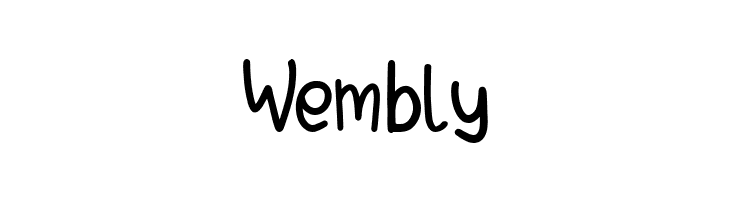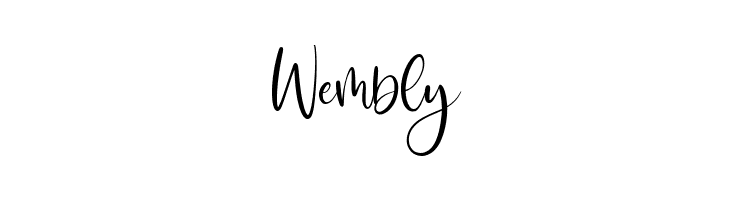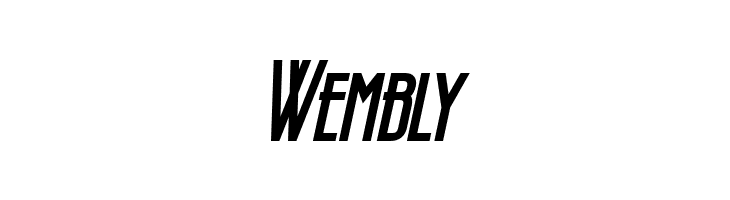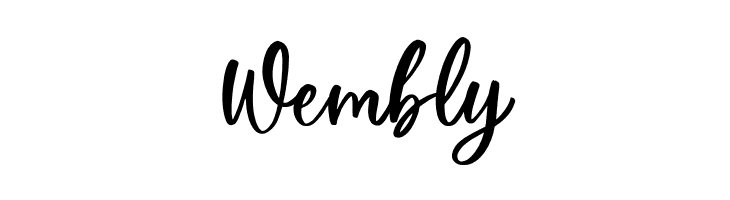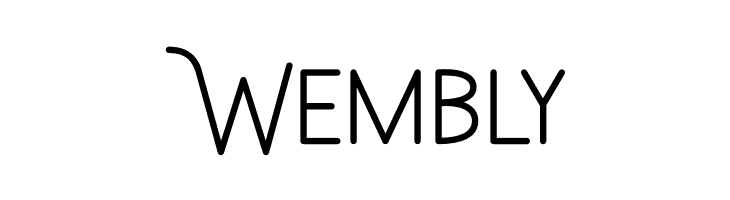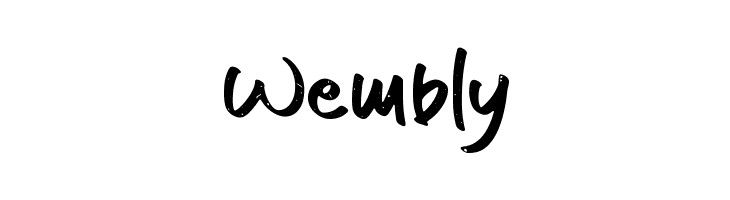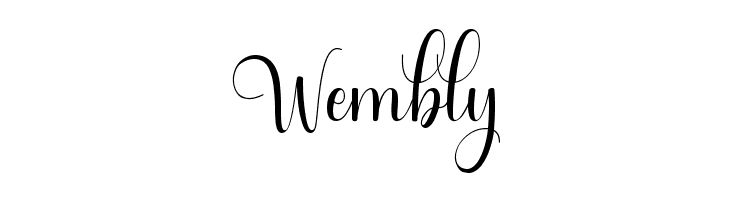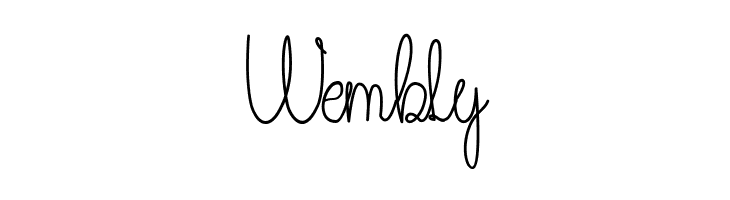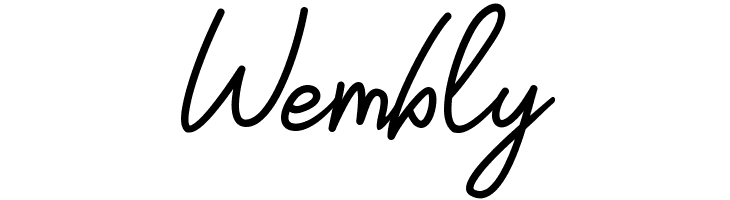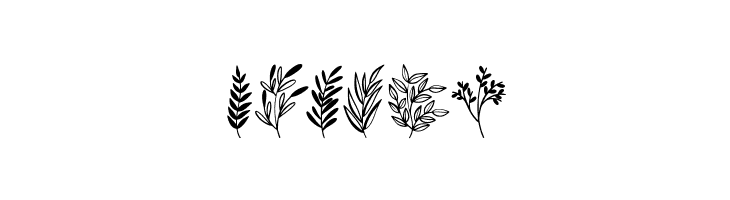
• Wellcome Paradise Bold Italic
A bold, italicized font with a modern, dynamic style and medium contrast.
• Wellcome Paradise Bold Italic
A bold, italicized font with a modern, dynamic style and consistent stroke weight.
• Wellcome Paradise Italic
A sleek, italic font with elongated, narrow characters and a modern aesthetic.
• Wellcome Paradise Italic
A modern, italic, and condensed font with sleek lines and uniform stroke weight.
• Wellsight
A versatile font with decorative and bold sans-serif styles.
• WellytoniaScriptDEMO
A lively script font with fluid, interconnected strokes and elegant loops.
• Westburry
A whimsical script font with decorative loops and curls.
• Western Christmas
Rounded, playful sans-serif with a handwritten touch.
• Western Cowboys
A bold, cursive script font with a dynamic and fluid style.
• Western Retro
A decorative font with Western and retro influences, featuring ornate uppercase letters and clean numerals.
• Westham - Personal Use
A cursive, handwritten-style font with flowing, connected characters.
• WestHood
A bold, slab serif font with a vintage and commanding style.
• Wheelie Track Demo
• Whimsical Rose
A whimsical and playful font with smooth, curvaceous letterforms.
• WhisperNightDemo
A bold, dripping font perfect for spooky and horror-themed designs.
• White Daisy
A playful, bold handwritten font with rounded edges and a whimsical style.
• White Farmhouse
Playful handwritten font with a casual style.
• White Jasmine
A playful, hand-drawn font with rounded edges and a whimsical style.
• White Letters Demo
A bold, decorative font with a vintage, three-dimensional style.
• White Letters Demo Italic
A bold, italic serif font with dynamic slant and strong presence.
• Whitfield
Casual handwritten script font.
• Wichy Lover